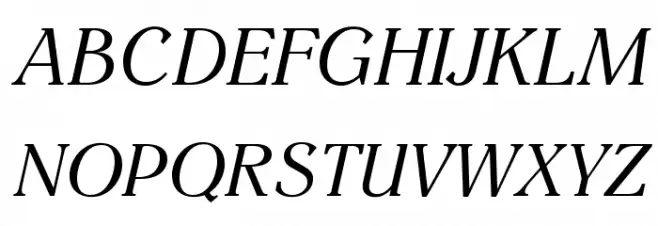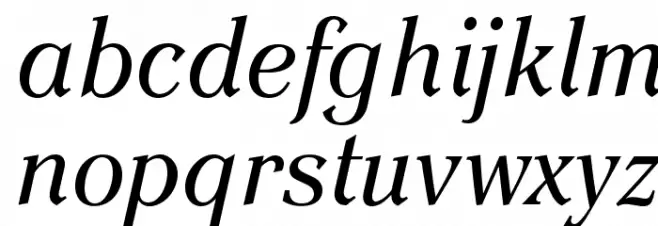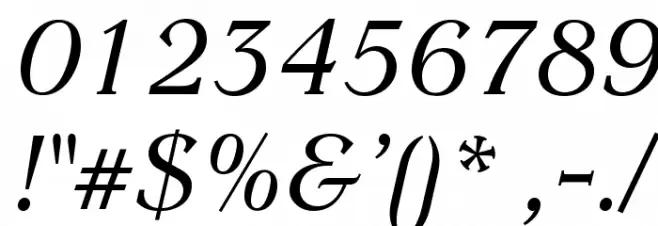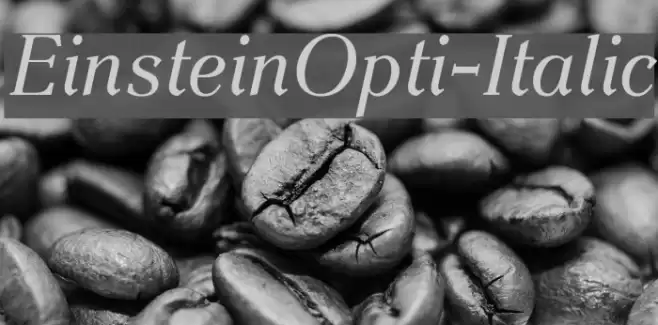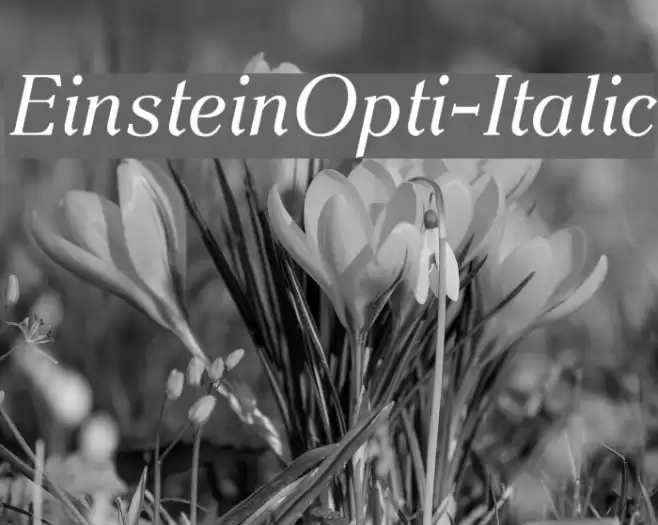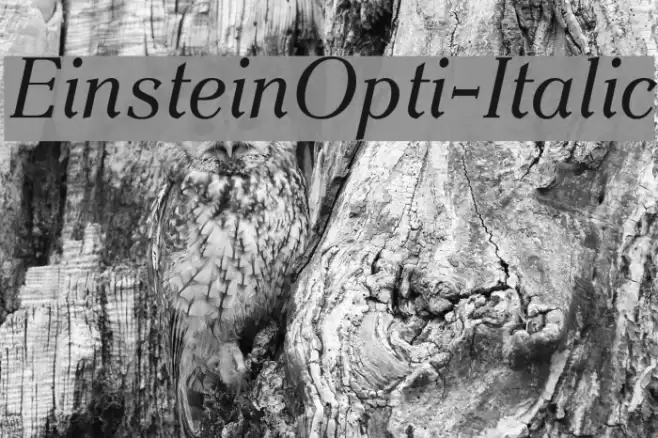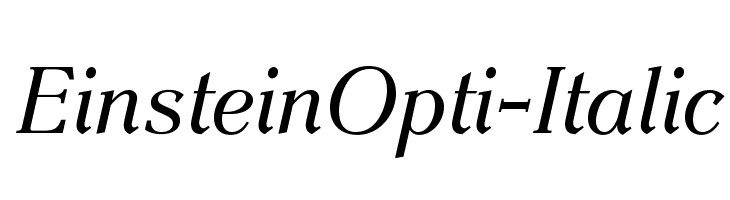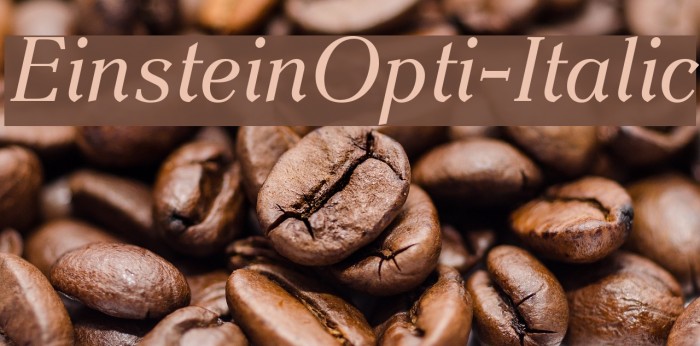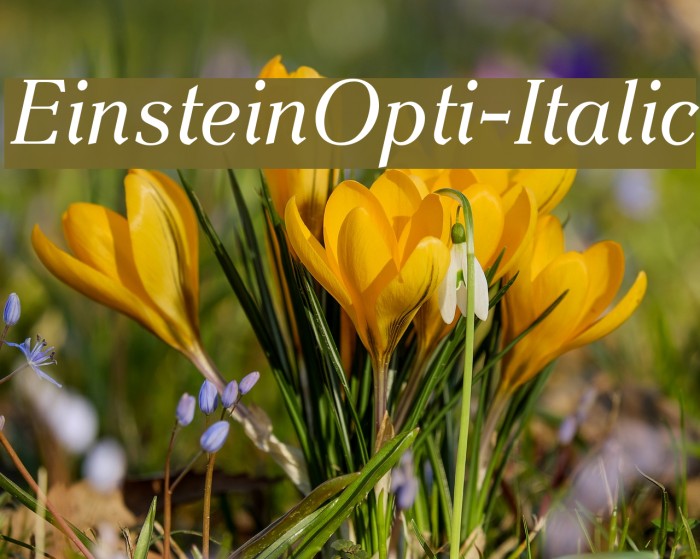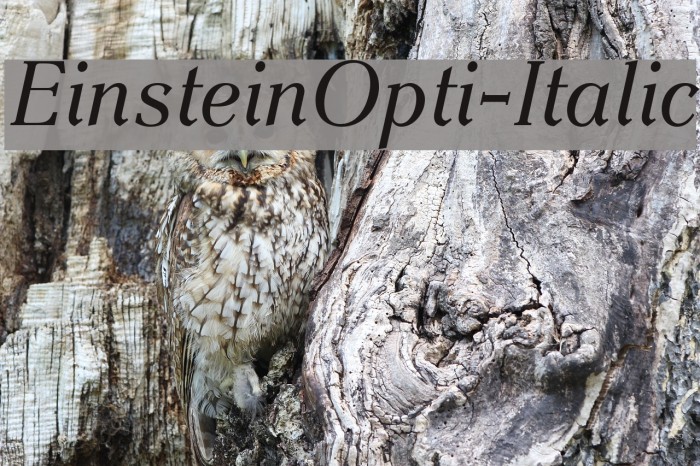
EinsteinOpti-Italic
This font exhibits a classic and elegant serif style with a distinct italic slant, giving it a sophisticated and dynamic appearance. The characters are well-proportioned, with smooth curves and sharp serifs that enhance readability while maintaining a refined aesthetic. The uppercase letters are stately and commanding, while the lowercase letters offer a graceful flow. Numerals are clear and balanced, complementing the overall design. Special characters are thoughtfully crafted, ensuring consistency across the typeface. This font is ideal for projects that require a touch of elegance and formality.
An elegant serif font with a classic italic style, perfect for sophisticated designs.
- Proposed Projects: Ideal for wedding invitations, formal event programs, luxury branding, and editorial design.
- Category: Serif
- Overall Style: Classic